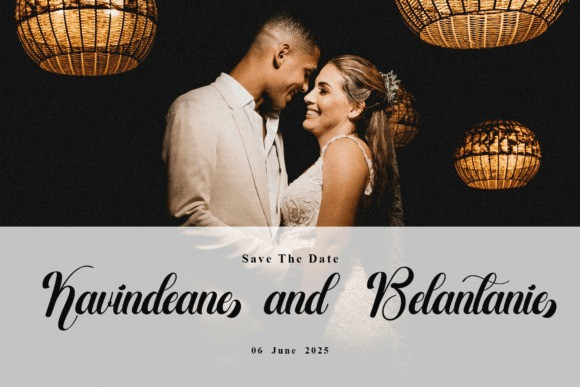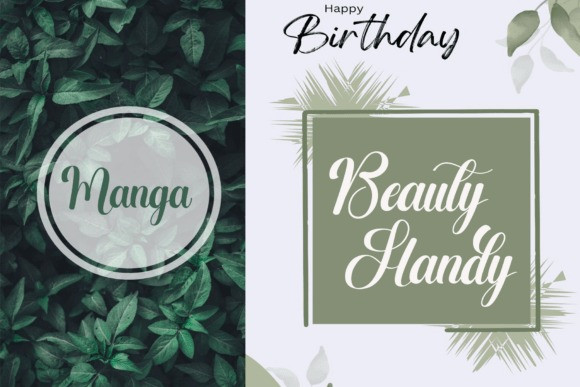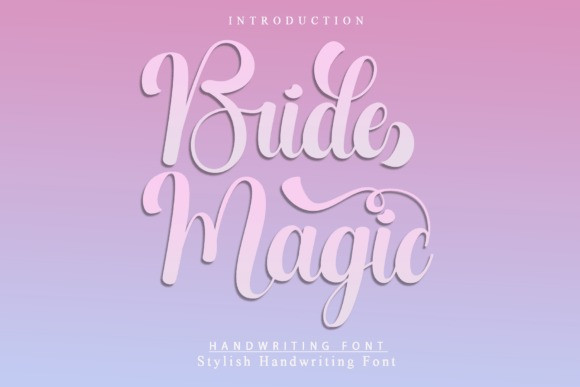
Bride Magic Font
Bride Magic Font is a casual handwritten font that radiates warmth and authenticity. Featuring smooth strokes, relaxed curves, and naturally balanced letterforms, it captures the charm of everyday handwriting with a clean and approachable style. Ideal for quotes, branding, packaging, and social media posts, it adds a personal and friendly touch to any design. With its effortless flow and versatile character, this font delivers both readability and charm.